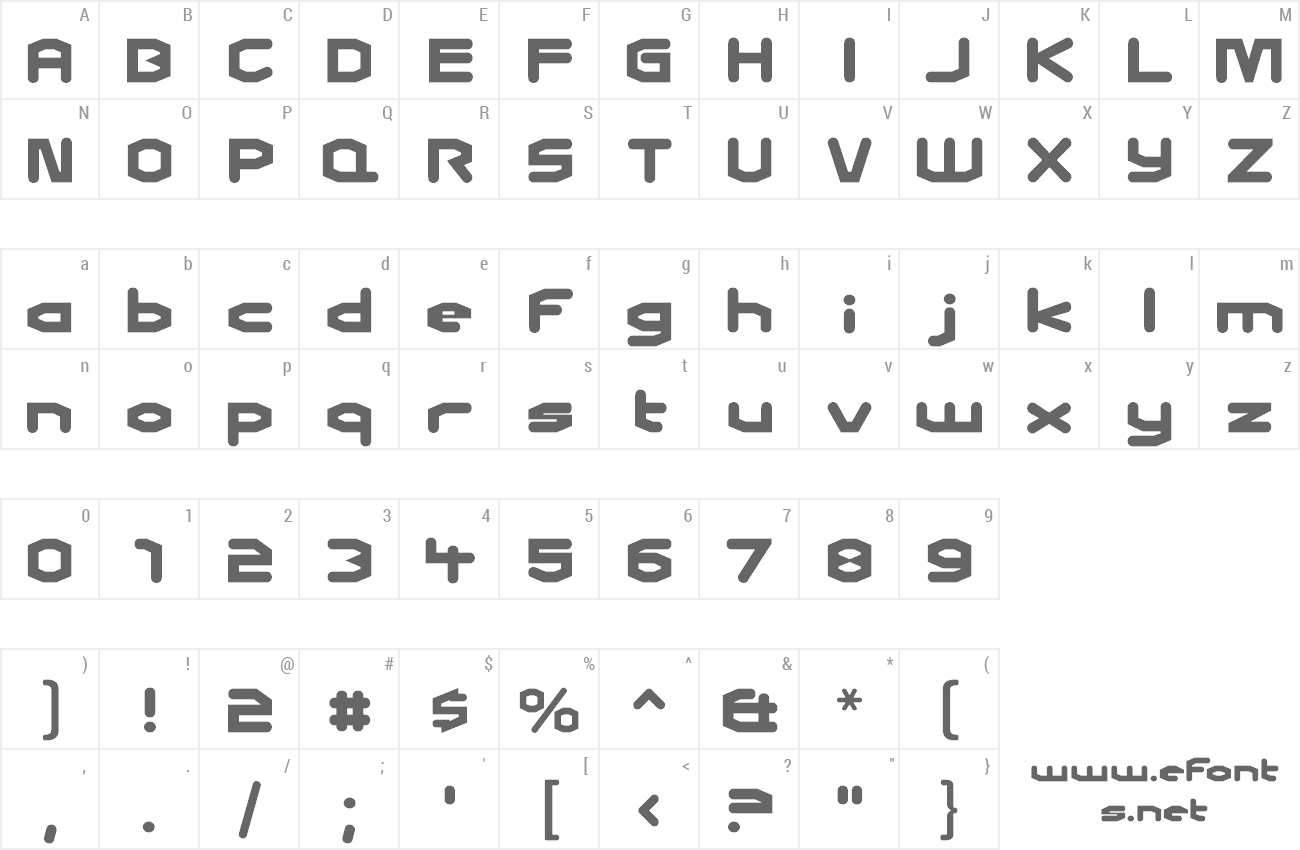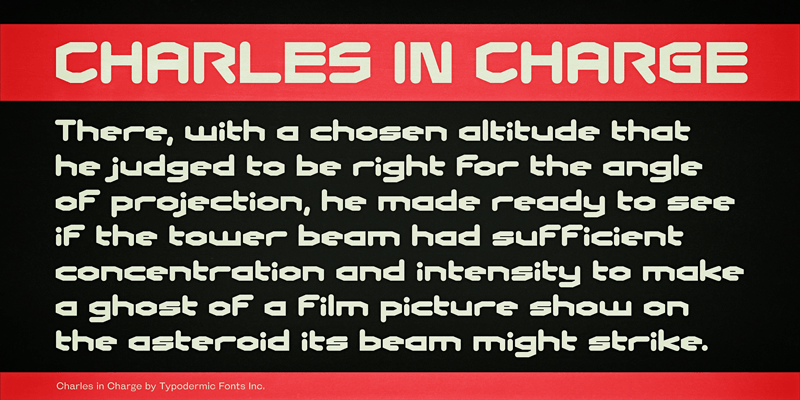
Charles in Charge is an angular, methodical, spy-thriller headline font. This font includes a license that allows free commercial use: sometimes referred to as a desktop license. This allows you to install the font on a computer and use it to create posters, web graphics, game graphics, t-shirts, videos, signs, logos and more. Read the license agreement for details. If you'd like to embed this font in an app, ebook, on the web or anything that's not covered by the desktop license agreement, visit the link below. You'll find distributors who offer different types of licenses or you can contact me for help. http://typodermicfonts.com/charles-in-charge/ |